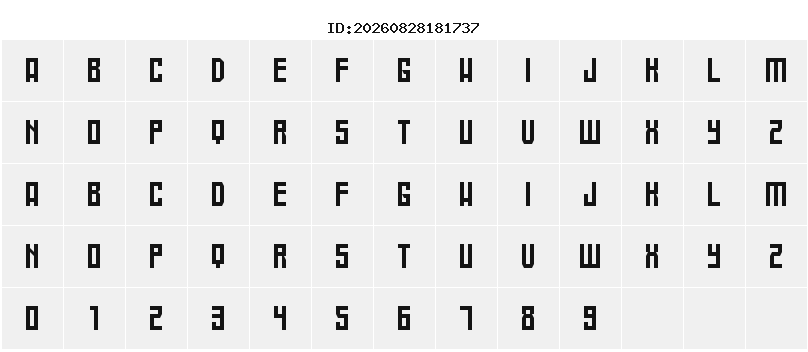
• Font Name: Tigre
• Full Font Name: Tigre Regular
• Designer: SpennH
• Description: “Tigre” was built with FontStruct
About Tigre.ttf
Tigre.ttf is a modern, elegant sans-serif font designed for ultimate readability and visual harmony. Perfect for branding, headlines, web design, and print materials.